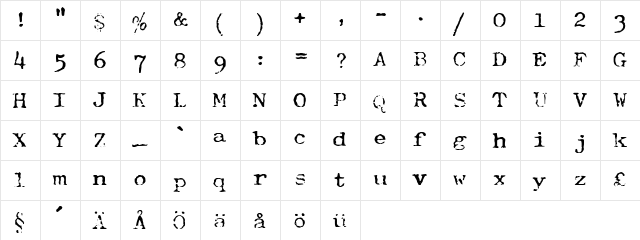
Typewriter-Font (Royal 200) Regular
| Foundry | MR.FISK FONTS |
| Designer | MR.FISK |
Design Context for Typewriter-Font (Royal 200) Typeface
Typewriter-Font (Royal 200) brings the precise, column-aligned rhythm of monospaced typography to designs that value technical clarity and systematic order.
A natural fit for code editors, technical documentation, developer-focused branding, and terminal-inspired UI.
Pro Tip: Pair Typewriter-Font (Royal 200) with a proportional sans for UI contexts where code-style labels and regular body copy need to coexist.